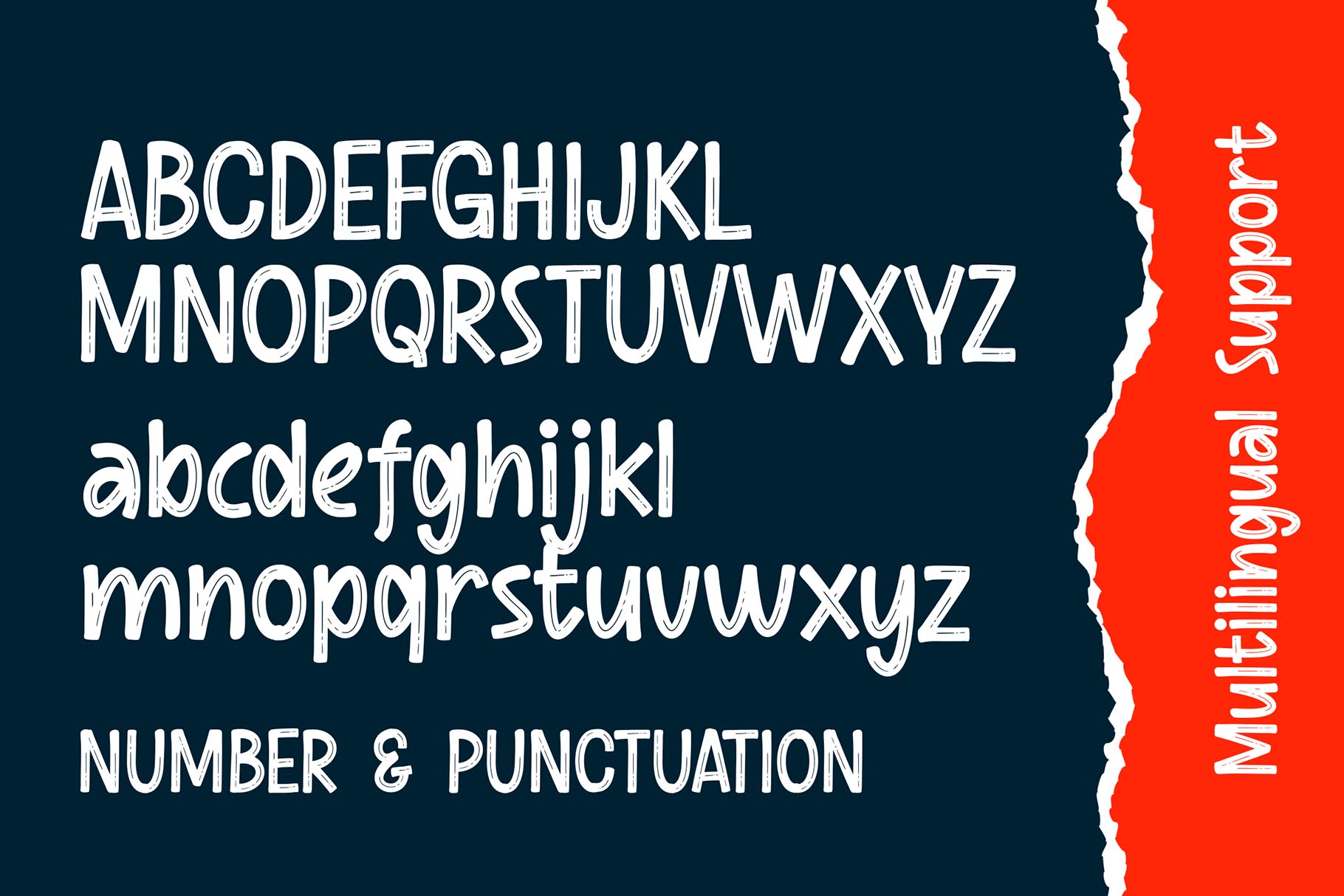
Say hello to Scratch Boys font.
Made with love and joy. Comic look, so it will make your design more beautiful, cute, fun, and colorful. It comes In two awesome styles.
- Basic Latin A-Z and a-z
- Numbers
- Symbols
- Multilanguage Support